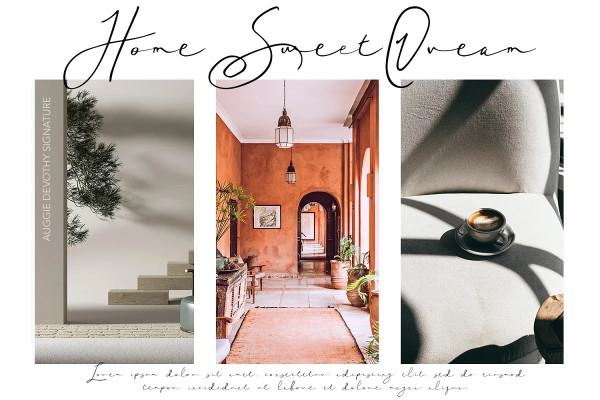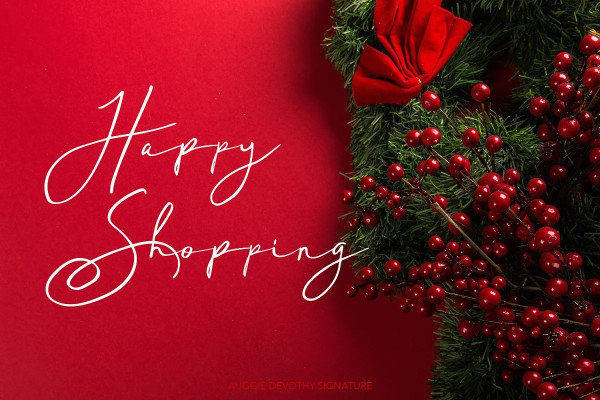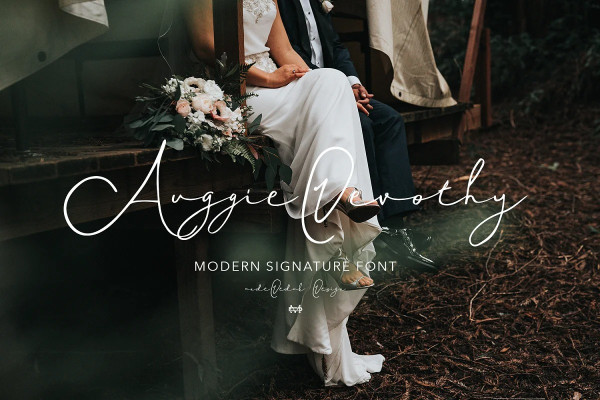
Auggie Devothy Font
Auggie Devothy Font is a realistic signature to give a incredible impression for all your project design come with more than 149 ligatures in each font to make everything look realistic handmade signature.